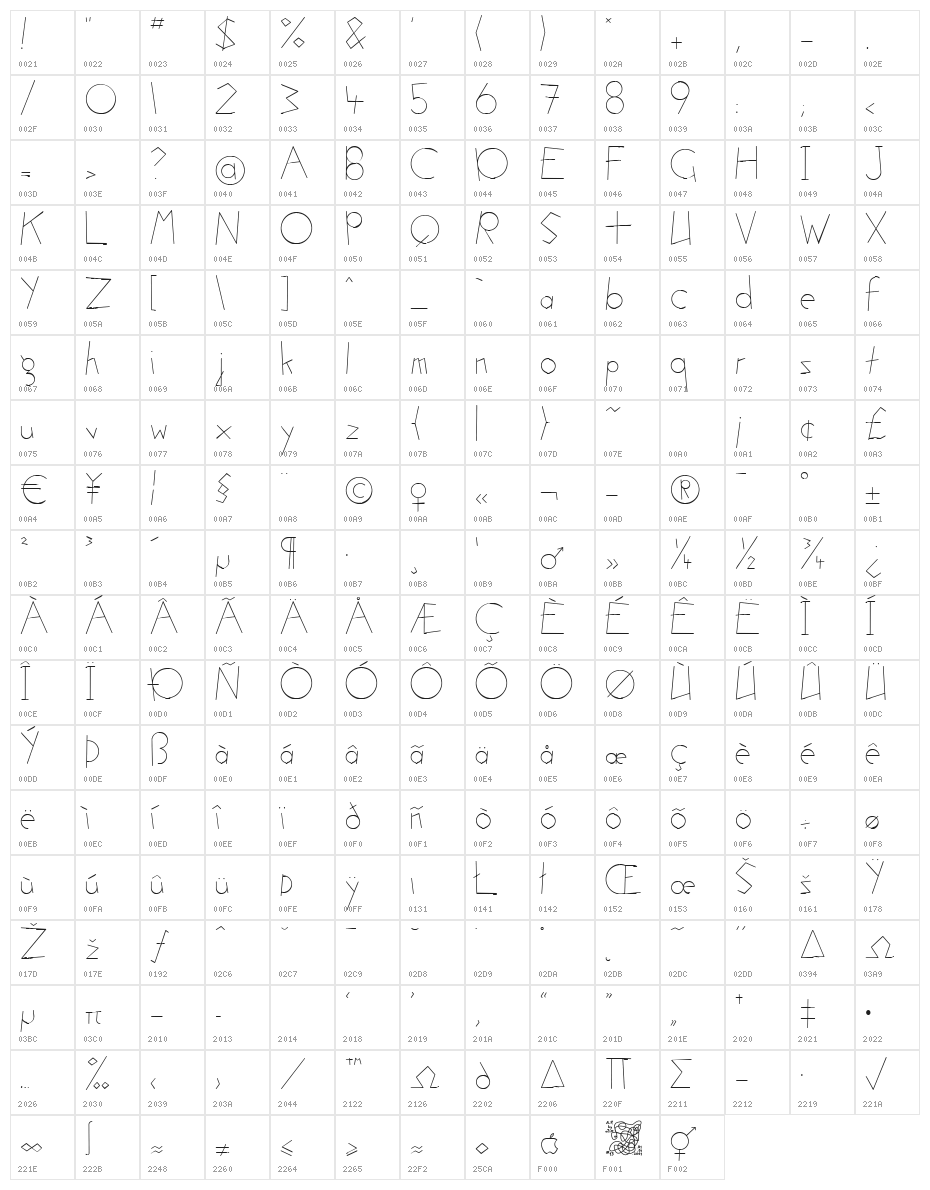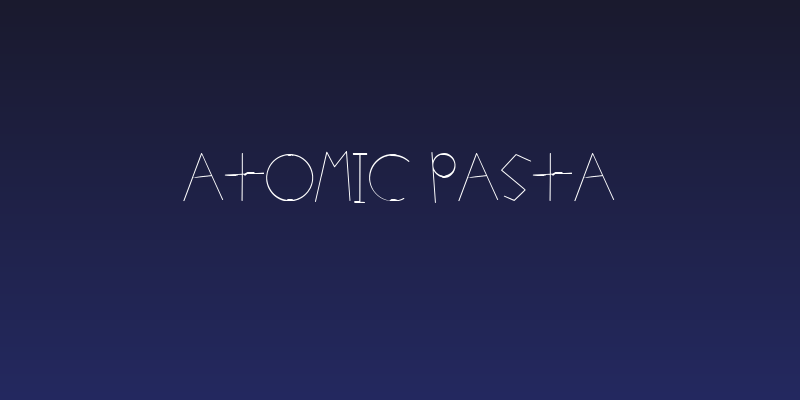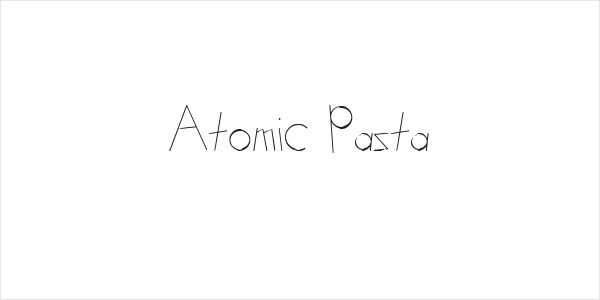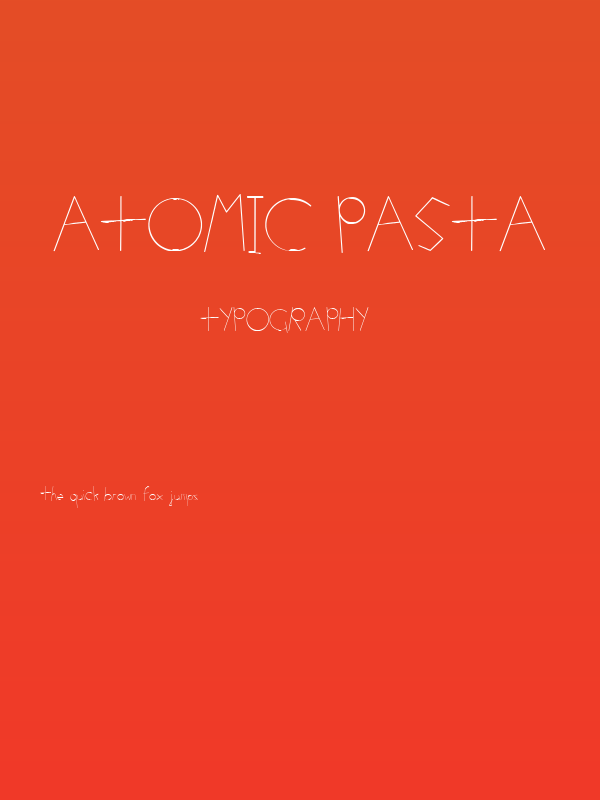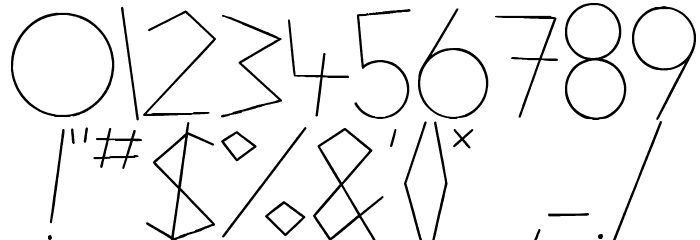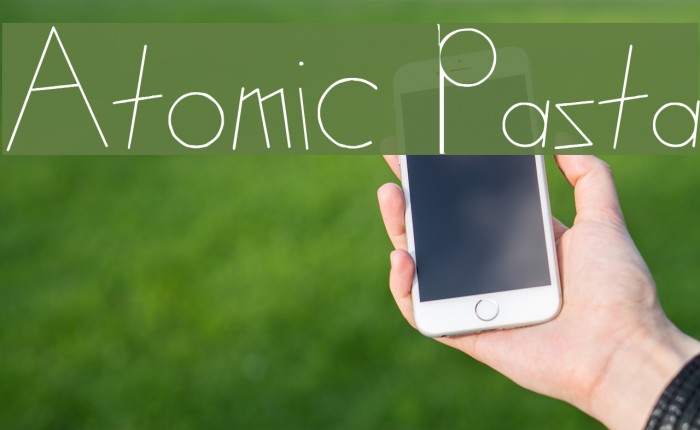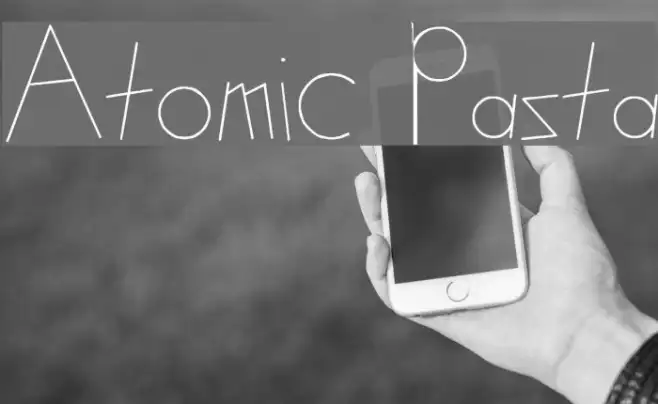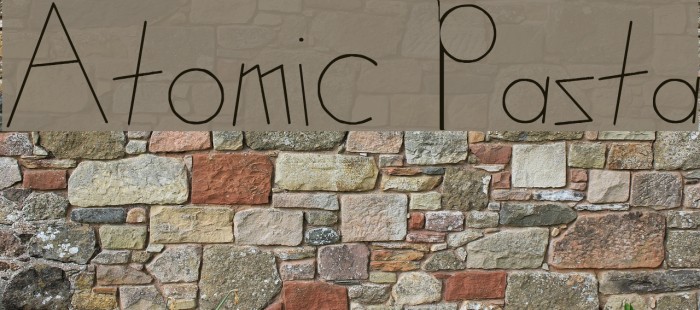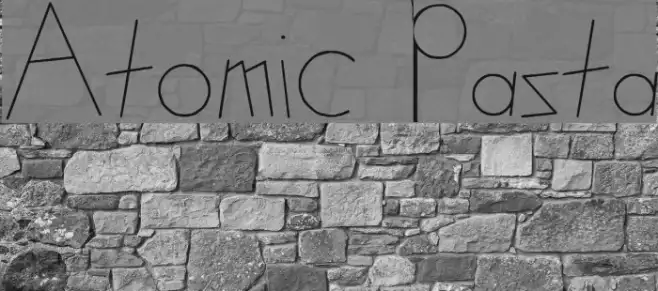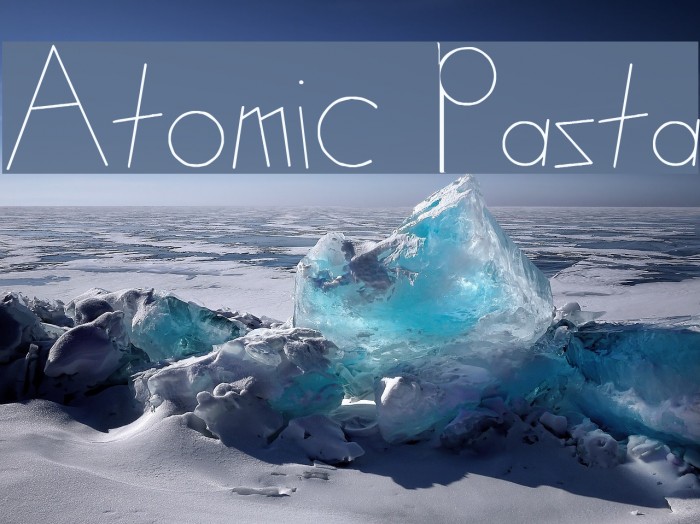
Atomic Pasta Font
Atomic Pasta Description
This font features a playful and quirky design, characterized by its irregular and hand-drawn appearance. The letters are thin and elongated, with a whimsical touch that gives them a unique personality. The uppercase and lowercase letters maintain a consistent style, with some characters having unexpected curves or angles that add to the font's charm. Numbers and special characters follow the same playful theme, making this font suitable for creative and informal projects. Its distinct style makes it stand out, offering a fresh and artistic look.
| Use Case | Logos, Posters, Invitations |
| Proposed Projects | Ideal for children's books, creative posters, playful branding, and artistic invitations. |